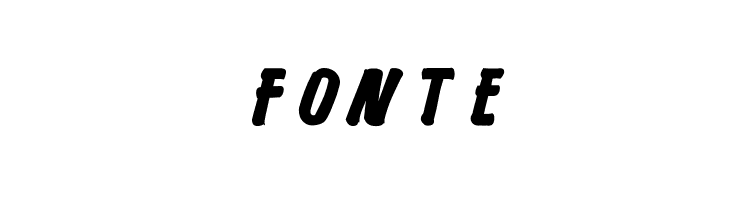
A bold, artistic font with playful, irregular strokes and a hand-drawn feel.
A lively, expressive handwritten font with fluid strokes and bold characters.
A smooth, flowing script font with elegant, connected letters.
A futuristic, geometric font with a bold, modular design.
A playful, handwritten font with smooth, rounded strokes and a casual charm.
A whimsical, elegant cursive font with flowing, artistic strokes.
A playful, hand-drawn font with a casual and artistic style.
A bold, condensed sans-serif font with a modern and robust design.
A bold, hand-drawn font with an energetic and playful style.
A bold, geometric font with a futuristic and digital aesthetic.
A bold, vintage typewriter-style font with rounded serifs and monospaced characters.
A bold, flowing script font with elegant, interconnected letters and high contrast.
A flowing, cursive font with elegant, connected letters.
A playful, handwritten font with bold, dynamic strokes and a casual vibe.
A playful, whimsical handwritten font with flowing strokes and unique flourishes.
A bold, geometric font with dynamic and stylized characters.
A fluid and elegant script font with a dynamic, flowing style.
An elegant, flowing script font with a natural handwriting style.
A playful, bold, and rounded font with a handwritten style.
A bold, geometric font with a digital, pixelated style.
A bold, three-dimensional font with geometric, block-like characters.
A modern, italic script font with fluid, interconnected characters.
A graceful script font with fluid, connected strokes and a sophisticated appearance.
A futuristic, italicized font with a 3D effect and outlined characters.
A bold, italicized font with a retro halftone effect and geometric shapes.
A bold, geometric font with a modern and structured design.
A sleek, thin, and italicized font with a modern and minimalist design.
A vintage typewriter-style font with irregular, bold characters.
A bold, rounded, and slightly slanted font with a playful and modern aesthetic.